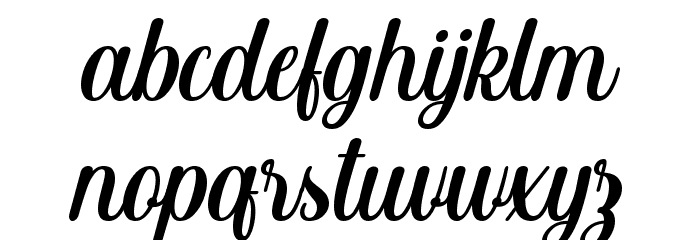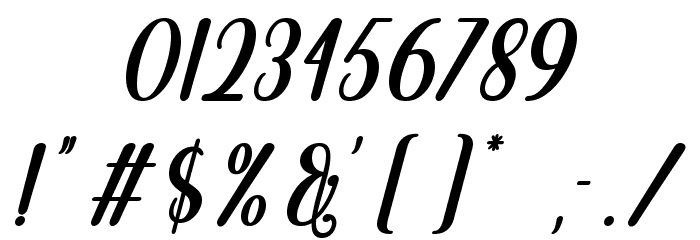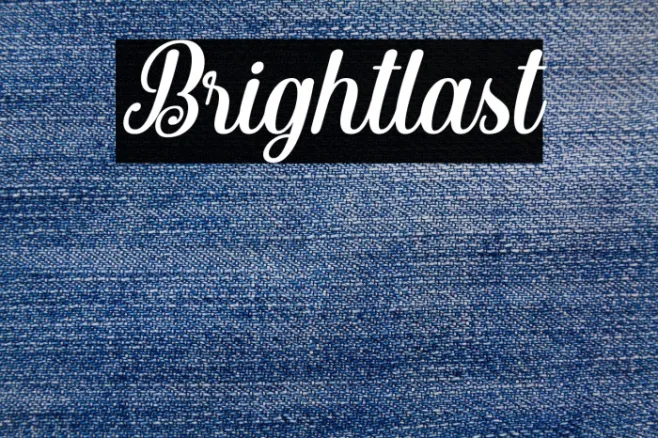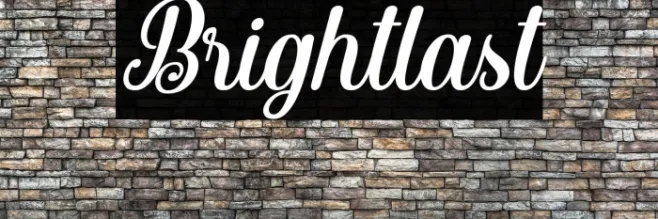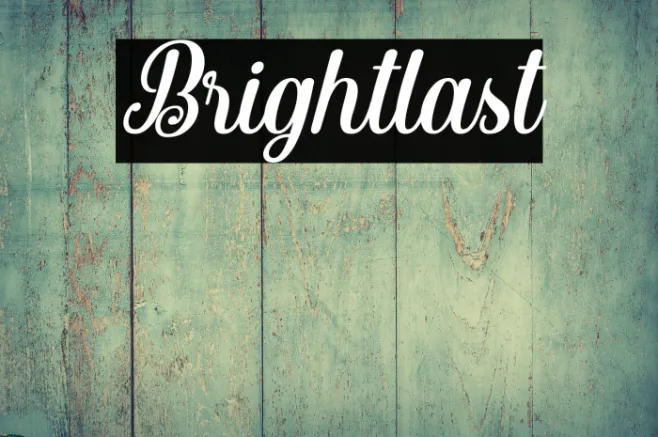
Brightlast Font
This font features an elegant and flowing script style, characterized by its smooth, cursive letterforms. The uppercase letters are ornate with intricate loops and swashes, adding a touch of sophistication and flair. The lowercase letters maintain a consistent flow, with gentle curves and a slight slant, enhancing readability while preserving the decorative nature. The numerals are styled to match the script, with curved lines and a harmonious appearance. Special characters are crafted with the same attention to detail, ensuring a cohesive look across all elements. This font exudes a sense of elegance and grace, making it ideal for formal and decorative applications.
An elegant script font with flowing, cursive letterforms and ornate uppercase letters.
- Proposed Projects: Ideal for wedding invitations, elegant branding, greeting cards, and decorative headlines.
- Use Case: Headlines, Logos, Invitations